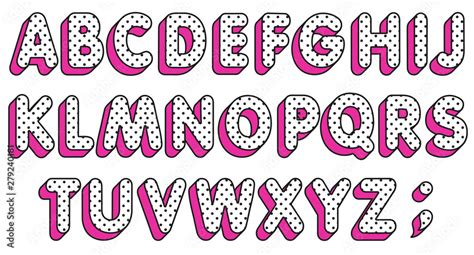
Lol Dolls Font. Web here is an lol surprise doll inspired alphabet and numbers in svg and png formats. In this post, we are representing a famous and modern typeface that is known as lol dolls font.
Web here is an lol surprise doll inspired alphabet and numbers in svg and png formats. Web lol dolls font free download. In this post, we are representing a famous and modern typeface that is known as lol dolls font.
Web lol dolls font free download. Web here is an lol surprise doll inspired alphabet and numbers in svg and png formats. Web lol dolls font free download. In this post, we are representing a famous and modern typeface that is known as lol dolls font.